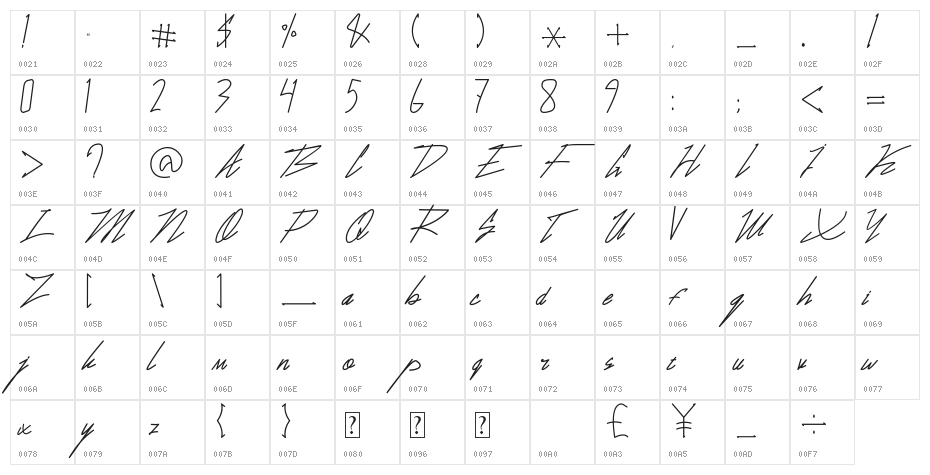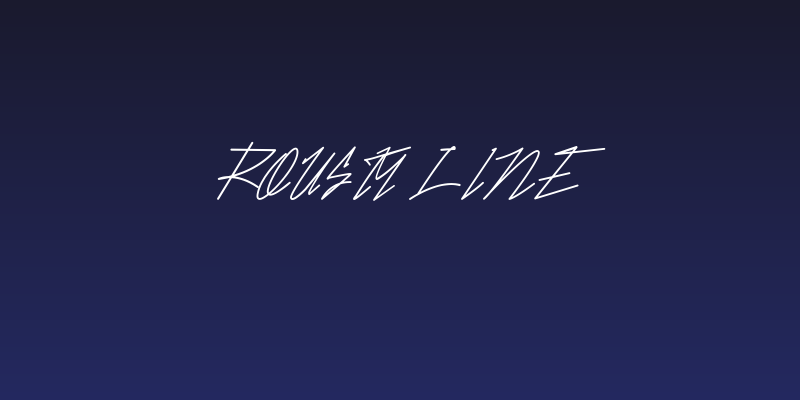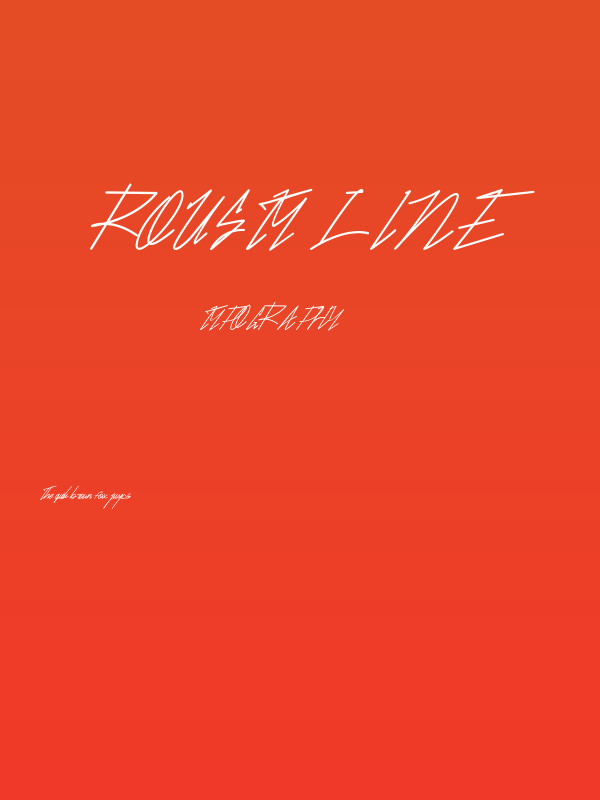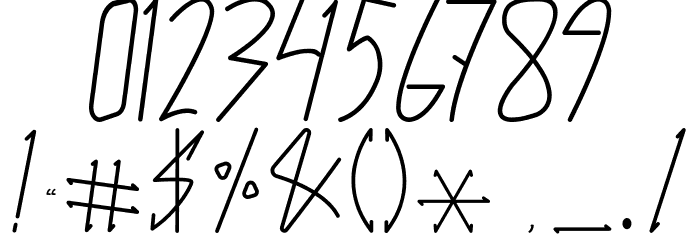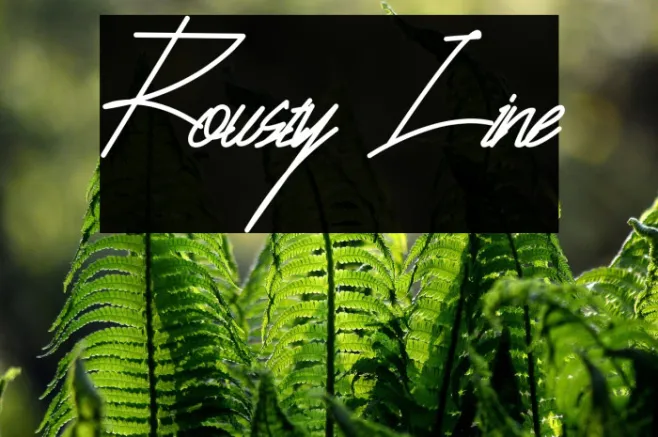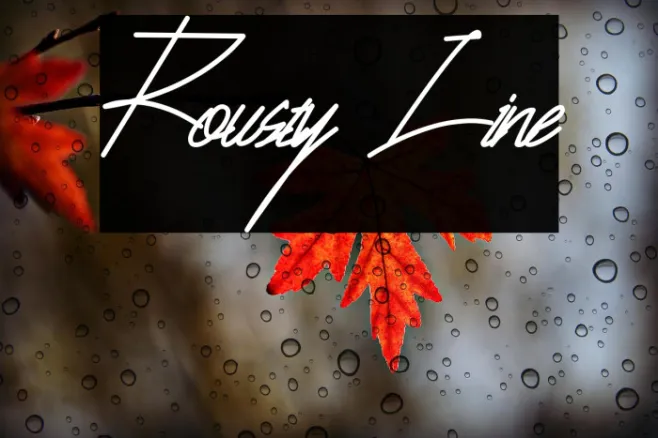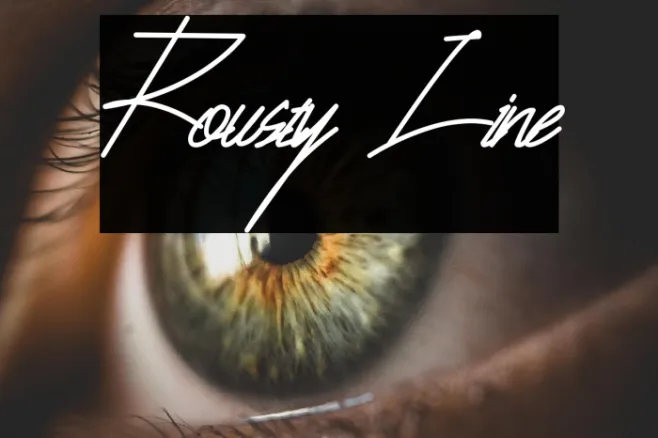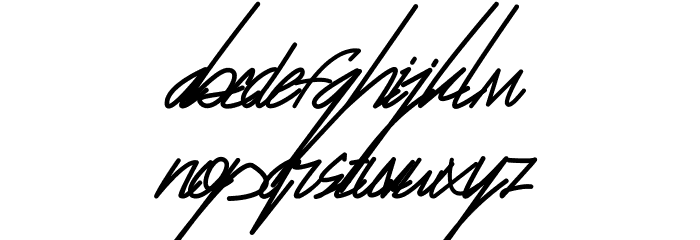
Rousty Line Font
Rousty Line Description
This font features a dynamic and energetic script style, characterized by its fluid and continuous strokes that mimic natural handwriting. The uppercase letters are bold and slightly slanted, giving a sense of movement and speed. The lowercase letters maintain a consistent flow, with some characters connecting seamlessly to others. Numbers and special characters are designed with the same lively flair, ensuring uniformity across all elements. The overall appearance is both modern and expressive, making it suitable for creative and informal applications.
| Use Case | Logos, Invitations, Creative projects |
| Proposed Projects | Ideal for branding projects, personal invitations, artistic posters, and any design requiring a personal touch. |